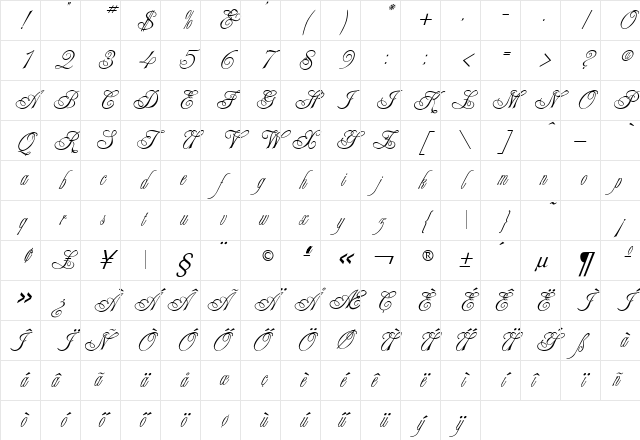
Alexei-Copperplate HU Normal
Design Context for Alexei-Copperplate HU
Alexei-Copperplate HU is a composed and adaptable typeface that performs quietly and consistently across a wide range of design contexts.